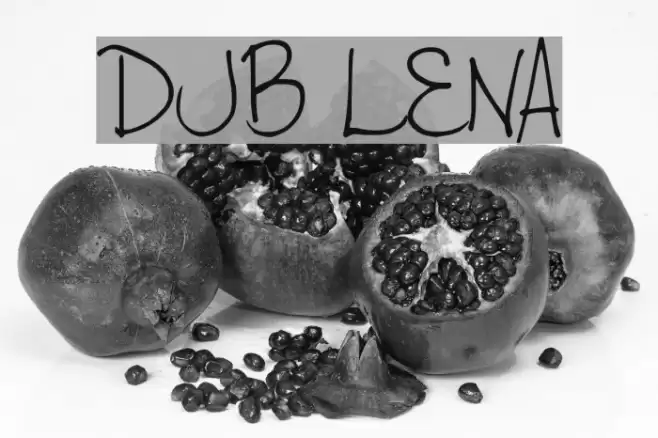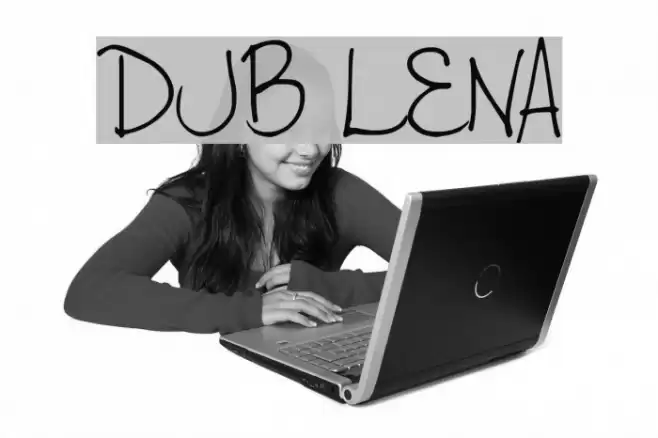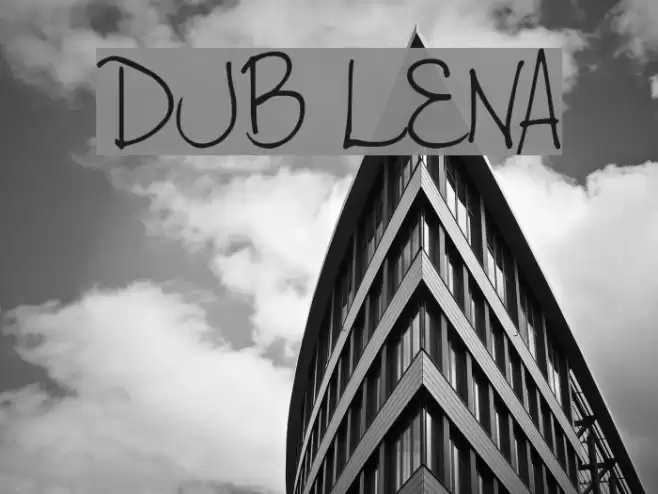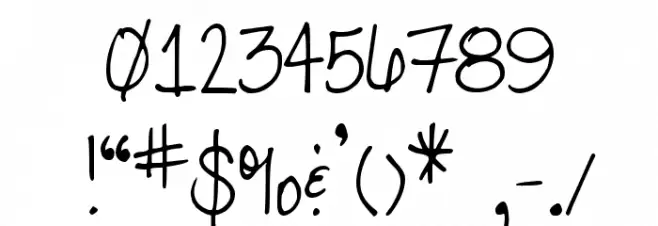
DJB LENA Font
DJB LENA Description
This font features a playful and casual handwritten style with a slightly irregular baseline, giving it a whimsical and approachable feel. The characters are tall and narrow, with a consistent stroke width that maintains readability while adding a touch of personality. The uppercase letters are bold and prominent, while the lowercase letters have a more relaxed and flowing appearance. The numerals and special characters are designed to match the overall style, ensuring a cohesive look across all text. This font is ideal for projects that require a friendly and informal touch.
A playful, handwritten font with a casual and approachable style from Uncategorized fonts.
- Proposed Projects: Ideal for greeting cards, children's books, casual branding, and social media graphics.
- Overall Style: Casual, Playful
- Use Case: Headlines, Informal text, Branding